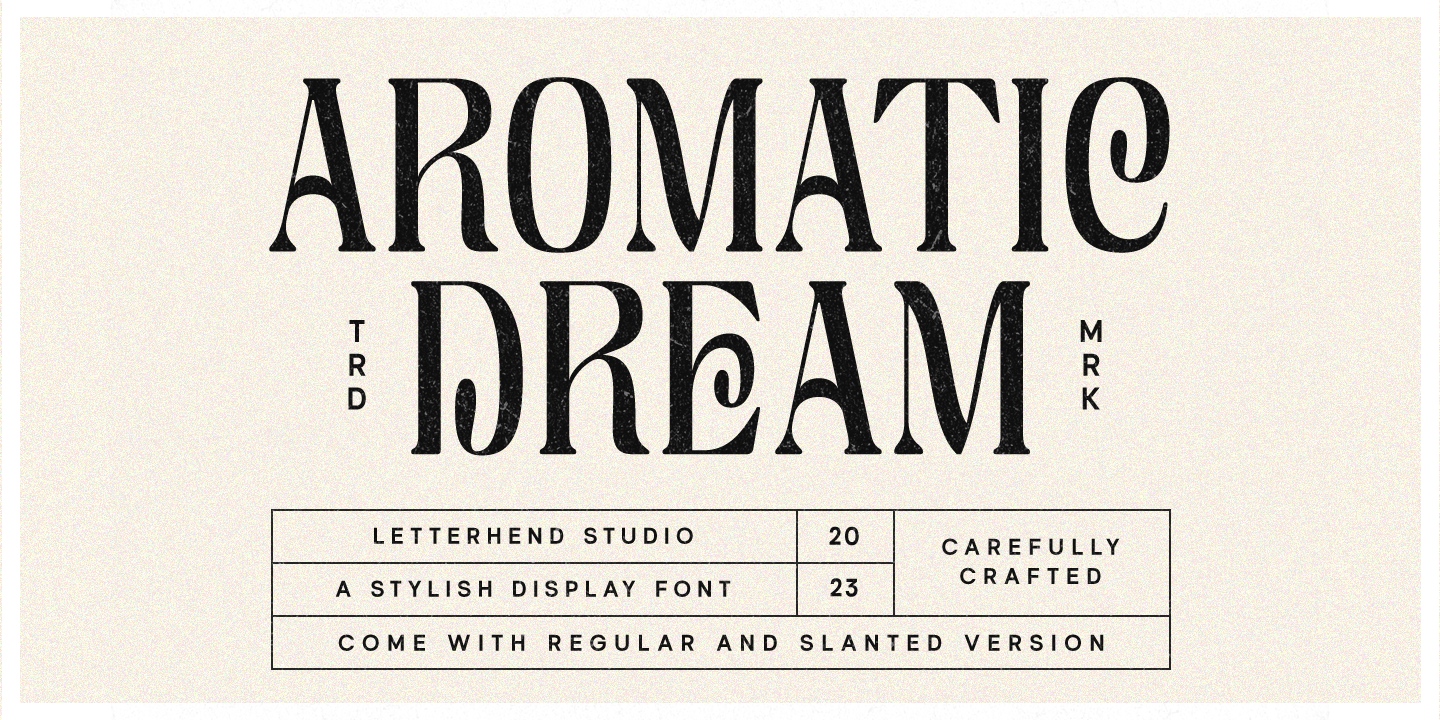
Aromatic Dream
Searching for a luxurious and sophisticated font with a classic feel? Look no further than this elegant typeface, designed specifically to evoke a sense of premium quality and refinement.
This versatile font is perfect for a wide range of formal applications, including logos, headlines, titles, invitations, labels, magazines, books, greeting cards, packaging, fashion, makeup, stationery, novels, and any other advertising purpose. Its versatility is further enhanced by its multilingual support and OpenType features, allowing you to access a vast array of glyphs and punctuation marks.
The font comes in both regular and slanted styles, with uppercase and lowercase letters, numbers, and punctuation marks available for use. Whether you're working on a high-end fashion campaign or designing a luxury brand's logo, this font is sure to impress.